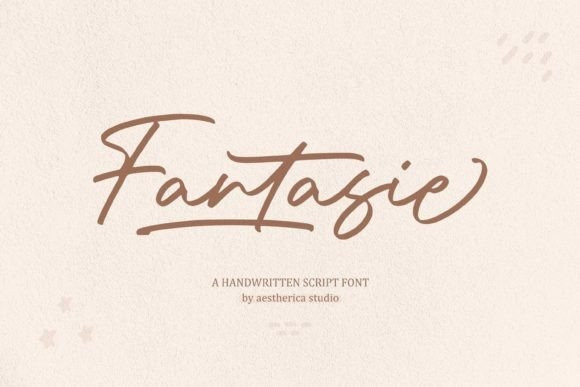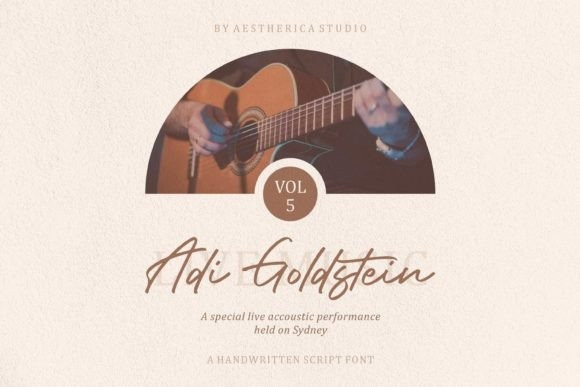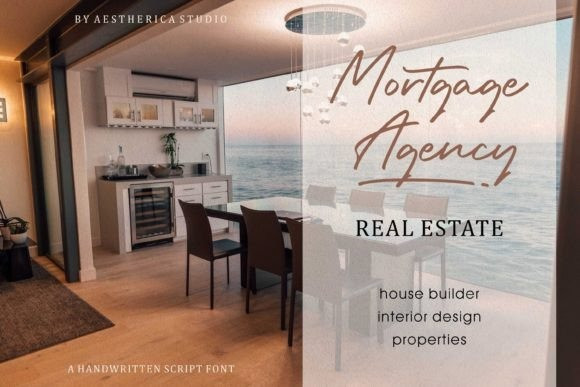
Fantasie Font
Fantasie is a handwritten script font with a natural & stylish flow, perfect for personal branding.
Fantasie Script is perfect for branding projects, logos, wedding designs, social media posts, advertisements, product packaging, product designs, label, photography, watermark, invitation, stationery, and any projects that need handwriting taste.